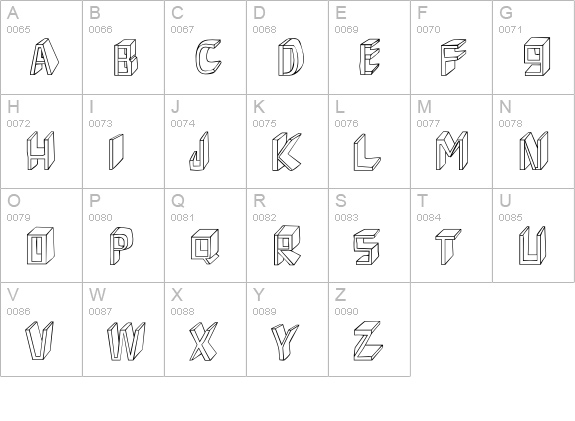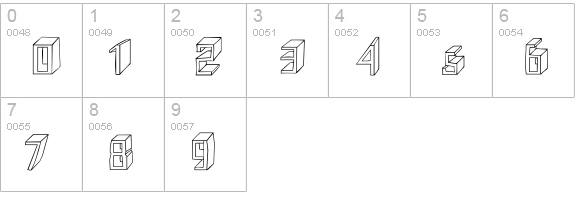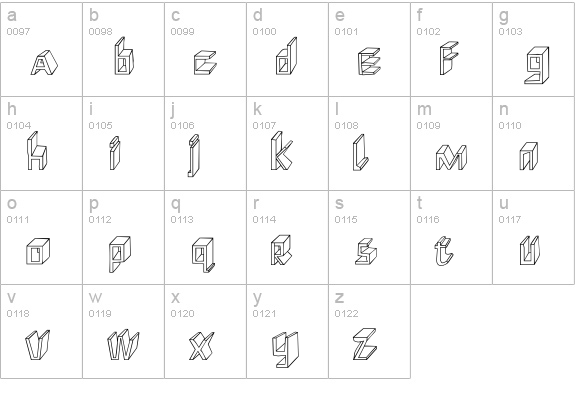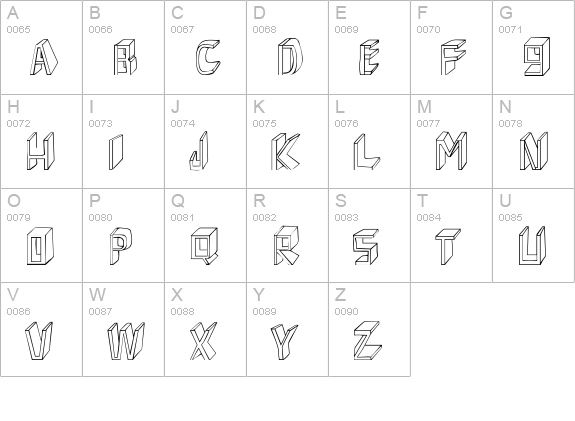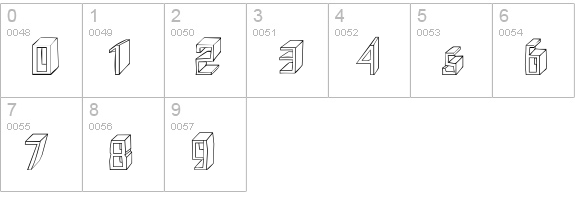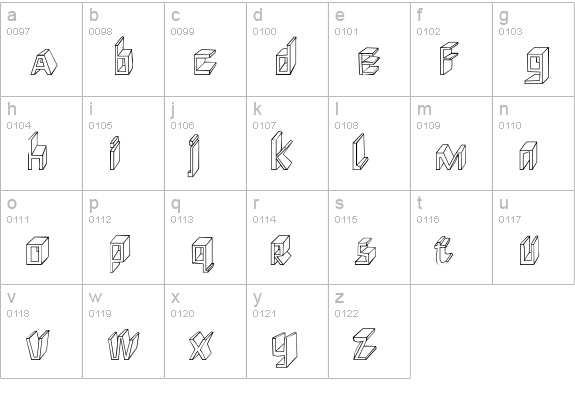
ShoeRepairs-Outline Font Details
ShoeRepairs-Outline font is a modern and stylish typeface that adds a unique touch to any design project. With its clean lines and bold appearance, this font is perfect for creating eye-catching headlines, logos, and posters. Its outline style gives it a contemporary and edgy look, making it suitable for both professional and creative purposes. One of the best features of ShoeRepairs-Outline font is that it is available for free download at FontsMarket.com. Whether you are a graphic designer, a student, or simply an enthusiast looking to enhance your designs, this font can be easily accessed and utilized without any cost. This makes it a budget-friendly option for those who want to add a touch of sophistication to their work without breaking the bank. The versatility of ShoeRepairs-Outline font is another reason why it is highly sought after. Its clean and legible design allows it to be used across a wide range of platforms and mediums. From digital projects such as websites and social media graphics to print materials like brochures and flyers, this font can adapt and elevate any visual composition. Furthermore, ShoeRepairs-Outline font is compatible with various design software and applications, ensuring that it can be seamlessly integrated into your workflow. Its high-quality and well-crafted outlines ensure that it retains its sharpness and clarity, even when scaled up or down. In conclusion, ShoeRepairs-Outline font is a fantastic choice for anyone looking to create visually striking designs. Its free availability to download at FontsMarket.com makes it accessible to all, regardless of budget constraints. So why wait? Take advantage of this opportunity and bring a touch of modern elegance to your next design project with ShoeRepairs-Outline font.